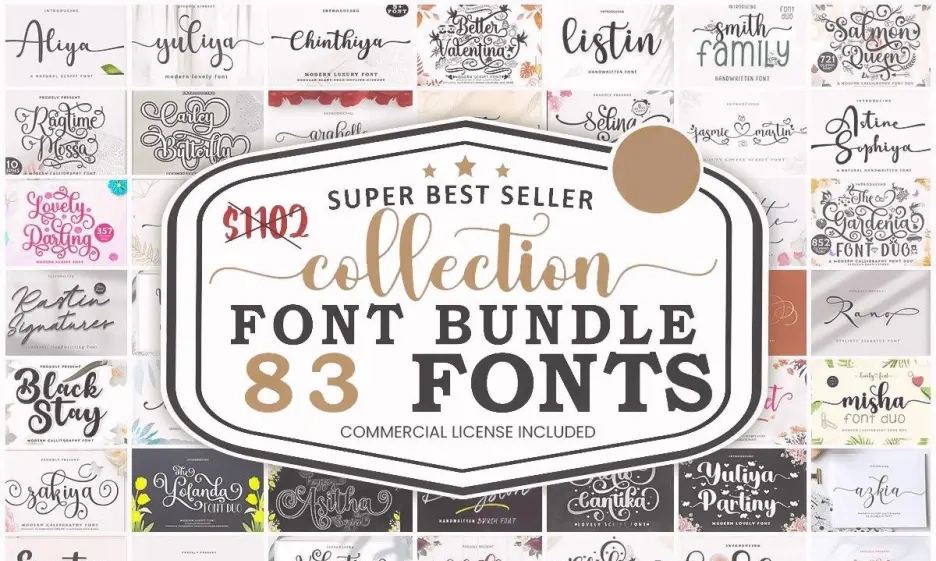
Super Best Seller Collection Font Bundle
Introducing the Super Best Seller Collection Font Bundle, a carefully curated selection of high-quality fonts designed to elevate your creative projects. This bundle includes a variety of font styles, from elegant serifs to modern sans-serifs, ensuring you have the perfect typeface for any occasion.
• Multiple font styles including script, display, and sans-serif
• Various weights for versatility in design
Each font in this collection is crafted with precision, providing smooth curves and legible characters. The bundle is perfect for branding, logo design, web applications, and print materials.
• Utilize different weights to create visual hierarchy in your designs.
• Combine styles for unique typographic compositions.